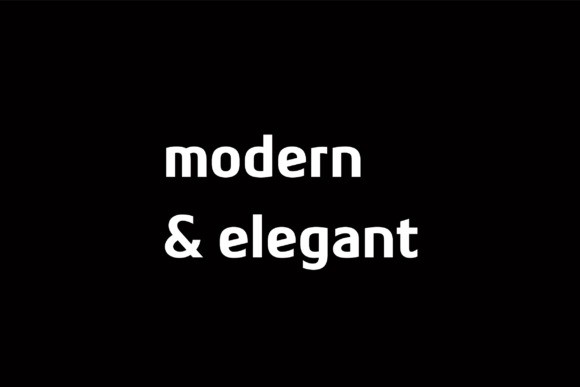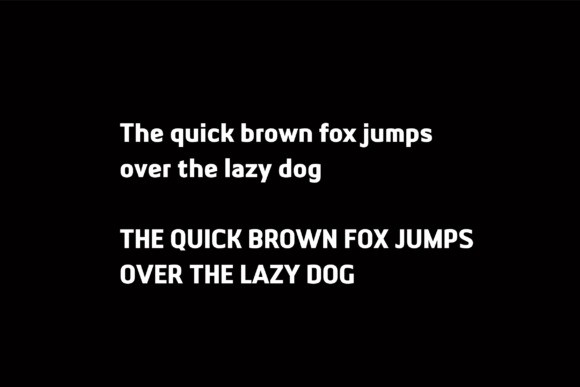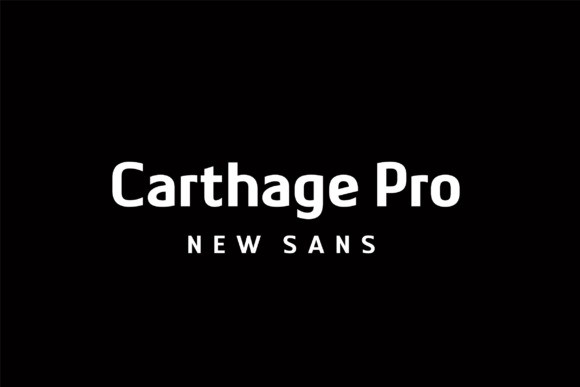
Carthage Pro Font
Carthage Pro Font is a simple, modern sans serif font suitable for a wide range of projects. You can use it in logo, banner, and label design. It works perfectly in advertising and web design projects, and so much more. It is a font that will simply stand out and it will definitely add value to whatever project you plan to accomplish.